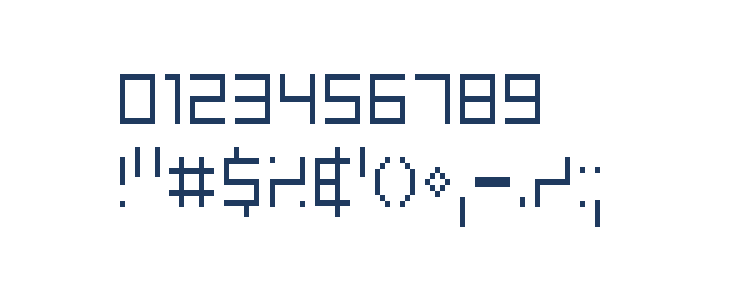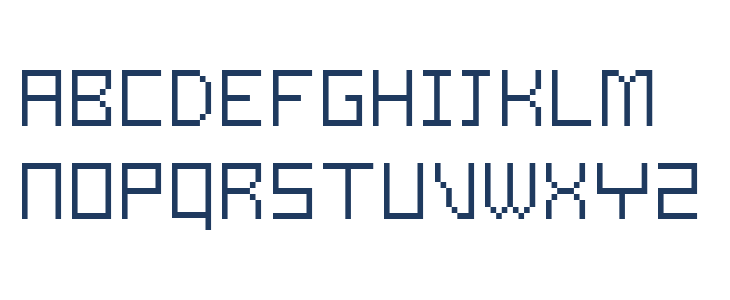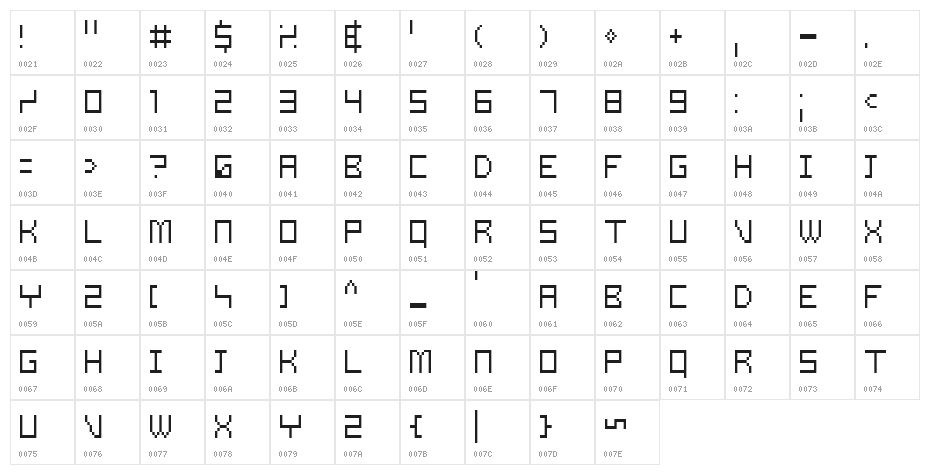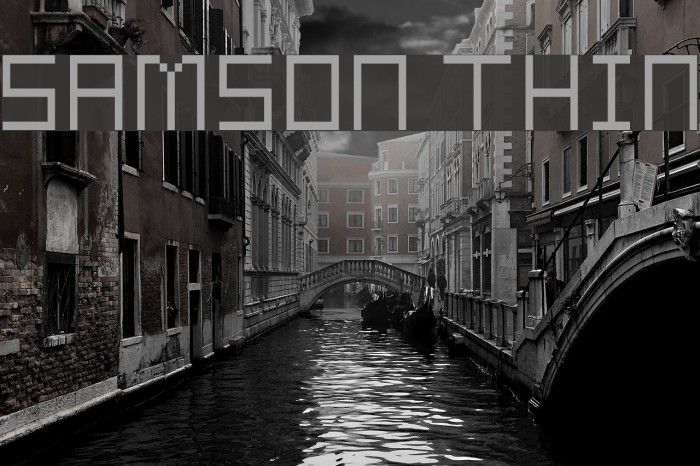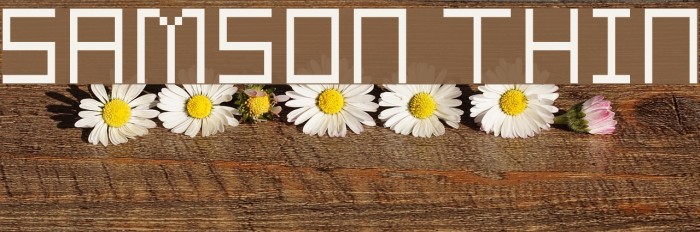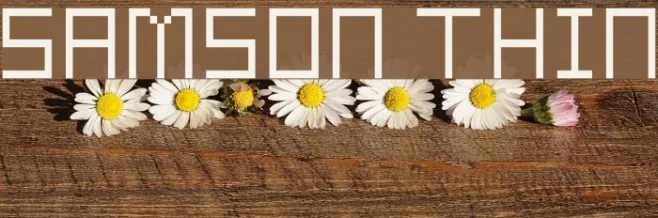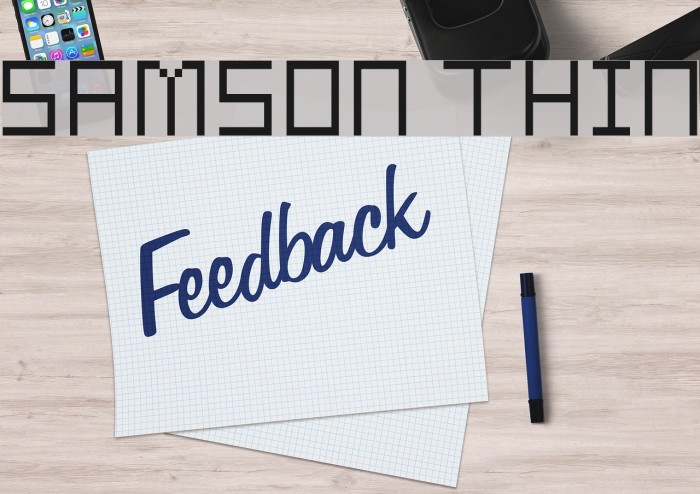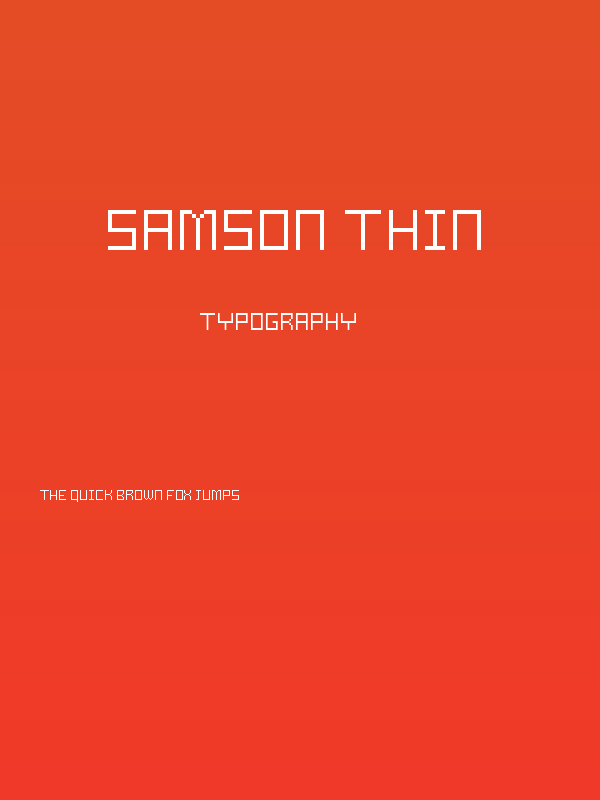
Samson Thin Font
Samson Thin Description
This font features a geometric, pixelated design reminiscent of early digital displays and retro video games. Each character is constructed with a grid-like precision, giving it a distinctly modern and technological feel. The uppercase and lowercase letters maintain a consistent height, while the numerals and special characters are crafted with the same blocky aesthetic. The font's uniformity and simplicity make it highly legible, even at smaller sizes. Its unique style is both nostalgic and futuristic, appealing to those looking for a digital or tech-inspired typeface.
| Use Case | Logos, Headlines, Digital interfaces |
| Proposed Projects | Ideal for video game design, tech branding, digital art projects, and retro-themed posters. |